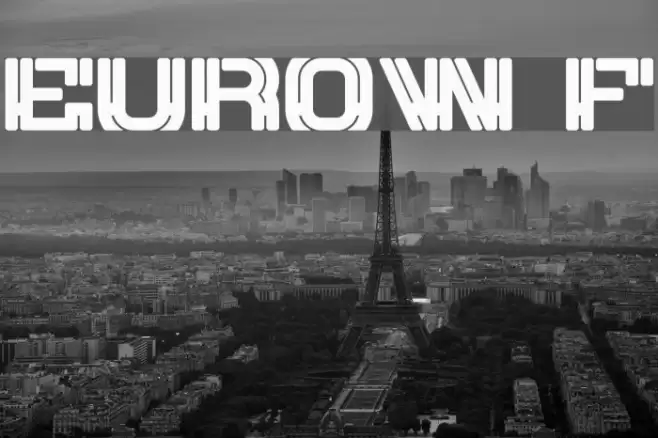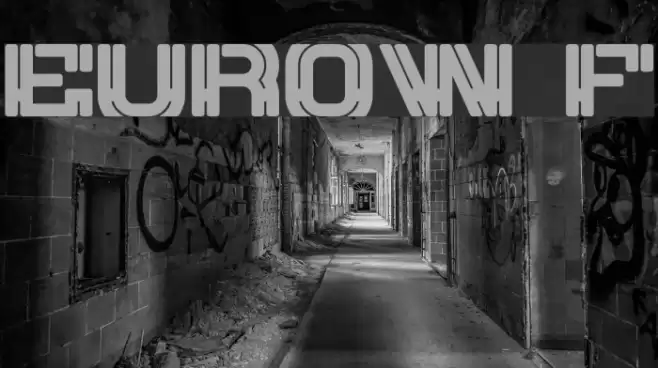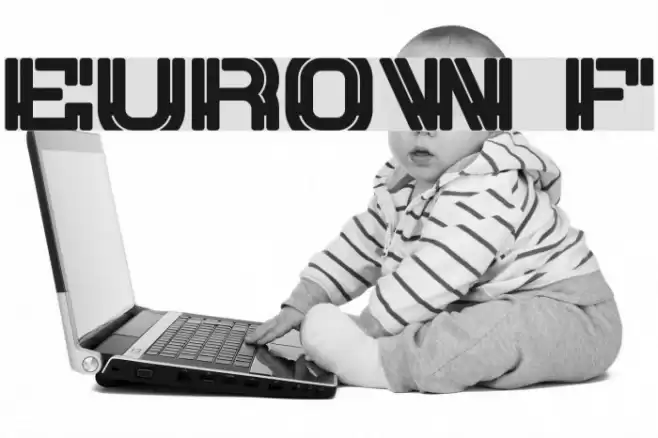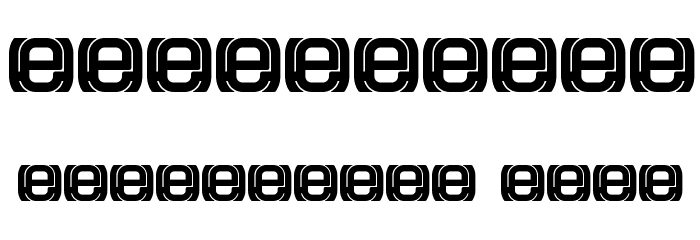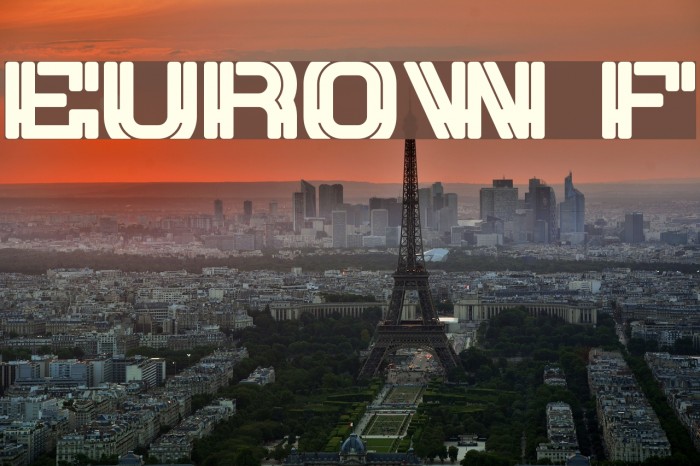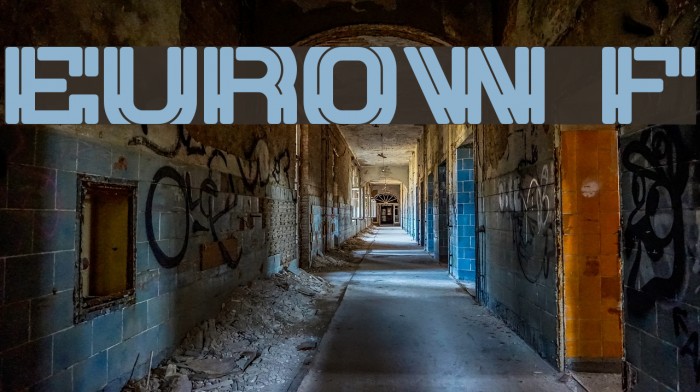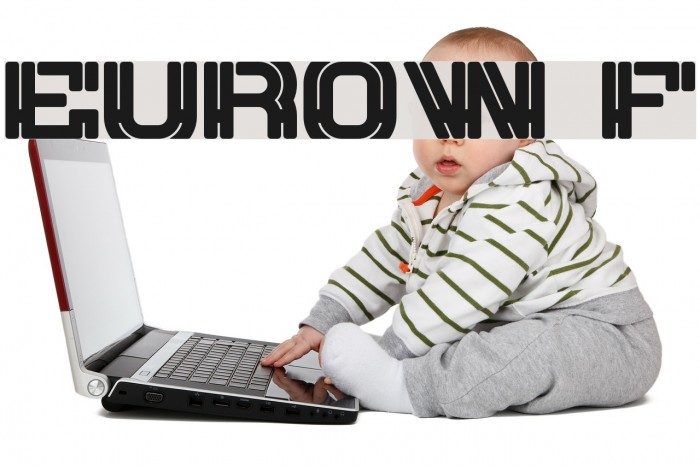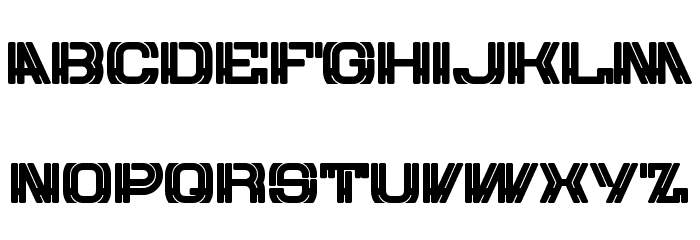
EUROW Font
EUROW Description
This font features a bold and futuristic design, characterized by its geometric and angular shapes. The letters are constructed with a combination of thick and thin lines, creating a high-contrast appearance. The style is reminiscent of digital or technological themes, with a modern and edgy aesthetic. The uppercase and lowercase letters maintain a consistent design, emphasizing symmetry and sharp edges. The numerals and special characters follow the same design principles, ensuring uniformity across the typeface.
A bold, futuristic font with geometric and angular shapes from Decorative fonts.